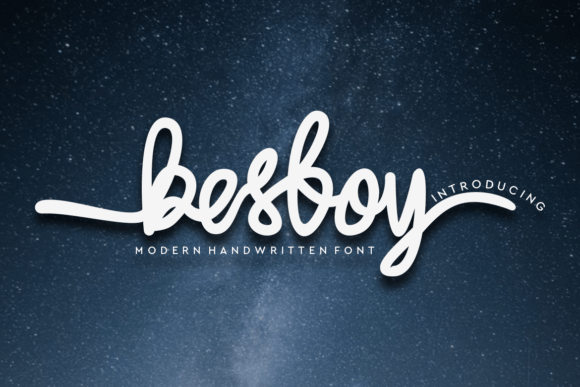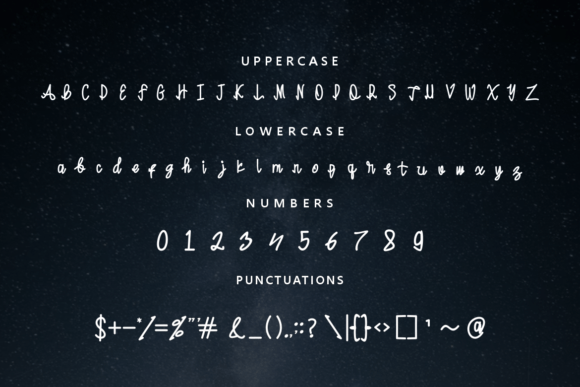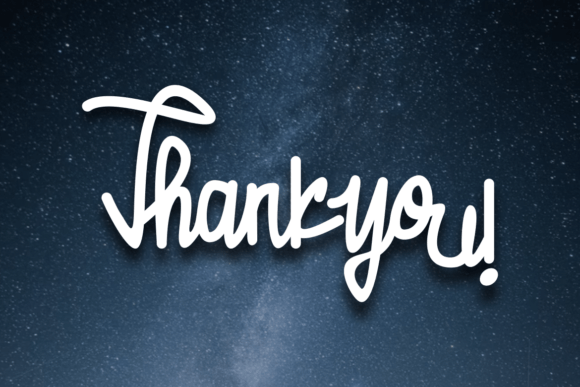
Introducing Besboy Font: The Epitome of Modern Elegance
In the realm of typography, few fonts manage to strike a balance between modernity and elegance. Besboy Font is one such exceptional typeface that embodies the essence of contemporary sophistication. This modern script font is designed to exude beauty, class, and refinement, making it an ideal choice for a multitude of design projects.
The Characteristics of Besboy Font
Besboy Font is characterized by its fluid, cursive strokes and harmonious letterforms. Each letter is meticulously crafted to ensure a seamless flow, creating a visually appealing text that captures the reader’s attention. The font’s modern aesthetic is balanced with a touch of classic elegance, making it versatile and suitable for various applications.
One of the standout features of Besboy Font is its incredible versatility. This font is perfectly suited for a wide variety of projects, including:
- Signatures: Add a personal touch to your professional or personal signatures.
- Stationery: Elevate your letterheads, invitations, and greeting cards with a touch of elegance.
- Logos: Create memorable and sophisticated logos for your brand.
- Weddings: Make your wedding invitations, menus, and decorations truly unforgettable.
- Typography Quotes: Highlight your favorite quotes with a stylish and modern twist.
- Magazines and Book Covers: Give your publications a professional and contemporary look.
- Website Headers: Enhance your website’s aesthetic appeal with elegant headers.
- Clothing and Branding: Add a classy touch to your fashion brand’s labels and packaging.
- Packaging Designs: Stand out in the market with beautifully designed product packaging.
Why Choose Besboy Font?
Besboy Font is more than just a typeface; it’s a design statement. Here are a few reasons why designers and crafters should consider Besboy for their projects:
- Elegance: Besboy brings an unparalleled level of sophistication to any design.
- Readability: Despite its elegant and cursive nature, Besboy maintains excellent readability.
- Uniqueness: Stand out from the crowd with a font that is both modern and distinctive.
- Flexibility: Use Besboy across various mediums, from digital platforms to print materials.
Tips for Using Besboy Font Effectively
To maximize the impact of Besboy Font, consider the following tips:
- Pair with Contrasting Fonts: Combine Besboy with simpler, sans-serif fonts for a balanced look.
- Adjust Letter Spacing: Fine-tune the kerning to enhance readability and aesthetics.
- Experiment with Sizes: Play with different font sizes to create visual hierarchy and emphasis.
- Use it Sparingly: While Besboy is elegant, using it sparingly can make it more impactful.
Besboy Font is a remarkable addition to any designer’s toolkit. Its modern script style, combined with its elegance and versatility, makes it an excellent choice for a wide range of projects. Whether you’re working on a wedding invitation, a fashion brand, or a book cover, Besboy can elevate your design to new heights. Discover the beauty and sophistication that Besboy Font can bring to your creations and make your designs truly unforgettable.